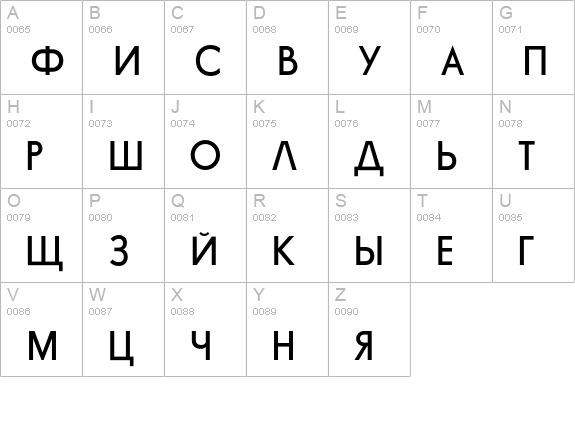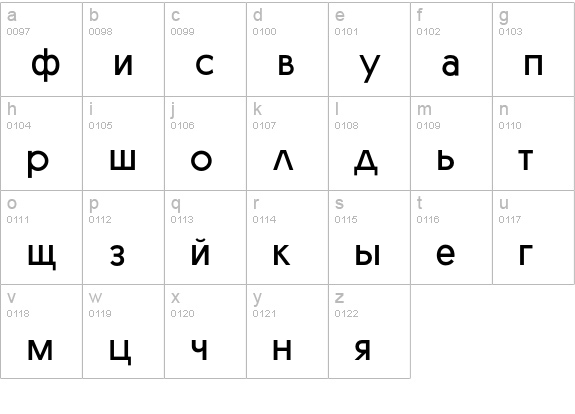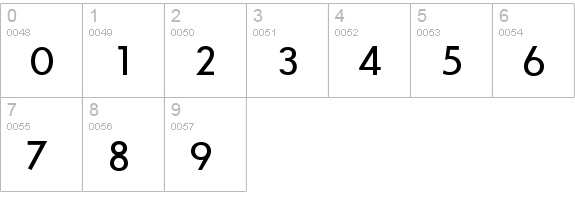
GlasnostDemibold Font Details
GlasnostDemibold is a versatile and elegant font that exudes sophistication and modernity. With its bold and distinctive letterforms, this typeface is perfect for creating eye-catching designs that demand attention. Whether used for headlines, logos, posters, or branding materials, GlasnostDemibold adds a touch of class and professionalism to any project. One of the best features of GlasnostDemibold is that it is completely free to download. You can easily access this stylish font at FontsMarket.com, where you can download it and start using it in your designs right away. Don't miss out on the opportunity to enhance your creative projects with the sleek and powerful GlasnostDemibold font.